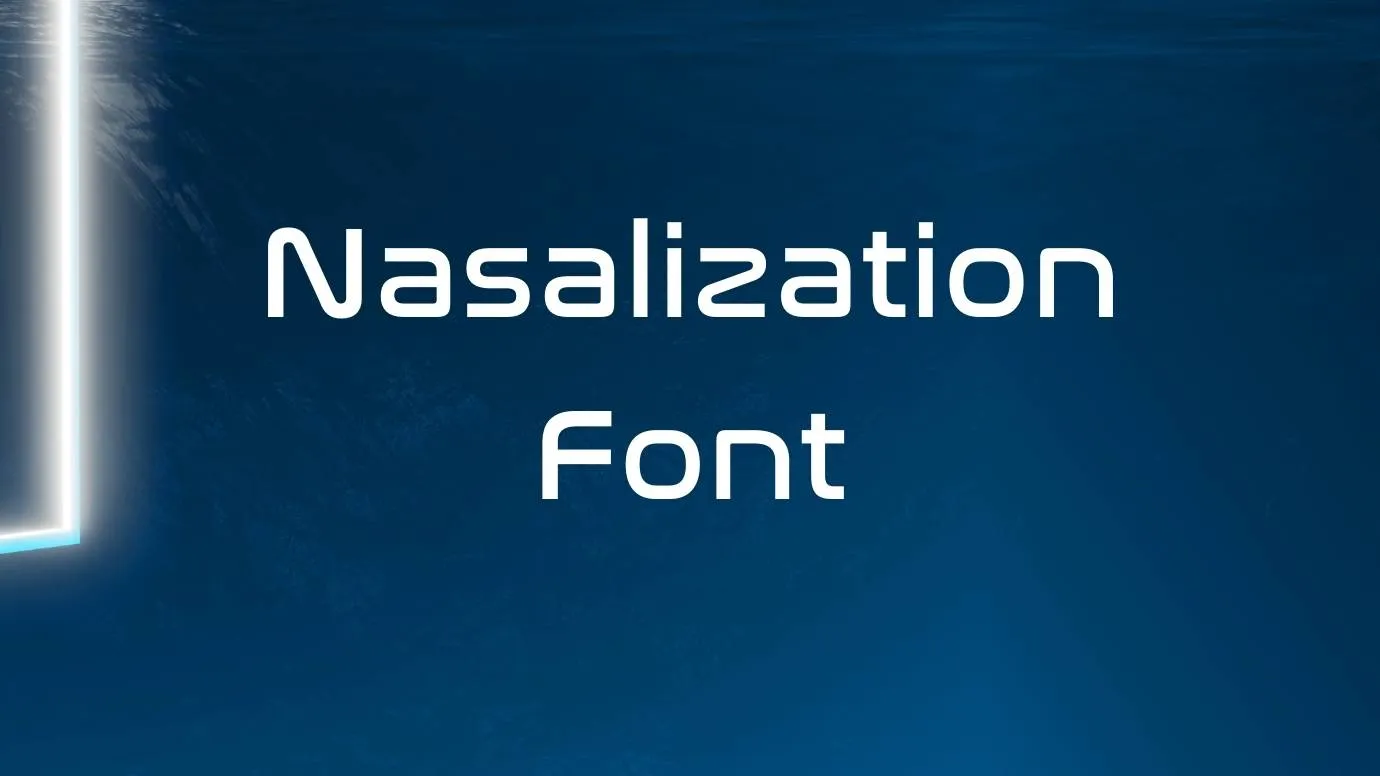
Nasalization Font Family is used for the logo of NASA. This font was created by Ray Larabie for the first time and Typodermic shared this outstanding font. The OpenType stylistic alternates feature of this font is also available.
It has six weights that are useful for many styles. Thanks to the designer of this font for giving a free commercial-use font. It supports a lot of languages due to its extended Cyrillic and Greek. This font is perfect to use for signs and game graphics.